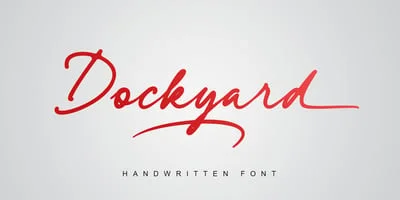
Dockyard Font
Usage Examples: Dockyard Font is ideal for logos, wedding invitations, stationery, photography, social media posts, product packaging, and greeting cards.
Why It’s Exciting: Its relaxed, handwritten style with a gentle flow adds a modern, personal touch, perfect for creating warm, inviting designs.
Font Families: Dockyard Font includes Regular and Swash variants, offering flexibility for creative and elegant design projects.
Elevate your designs with Dockyard Font! Crafted by Lemonthe, this handwritten typeface brings a smooth, flowing aesthetic to logos, invitations, and branding materials. Its PUA-encoded glyphs allow easy access to swashes, making it versatile for both personal and professional projects. Download Dockyard Font now to test its charming style, but secure a commercial license for professional use. With Regular and Swash variants, this font supports over 292 languages, ensuring global appeal. Perfect for creating a welcoming, stylish vibe, Dockyard Font enhances your brand’s visibility with its unique, handwritten elegance.